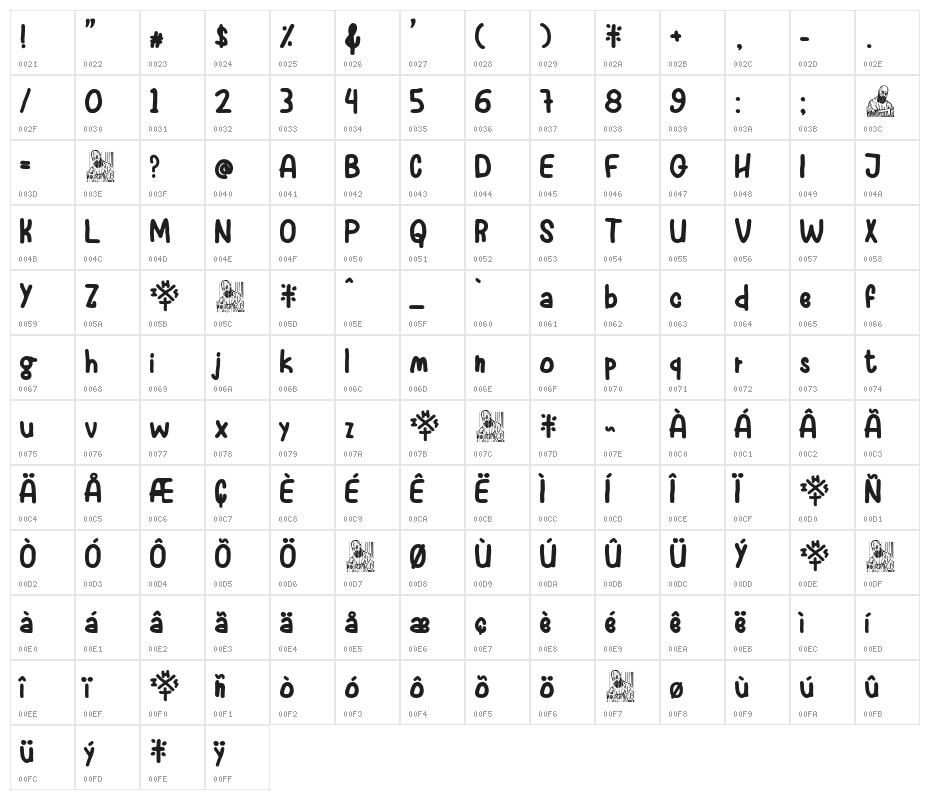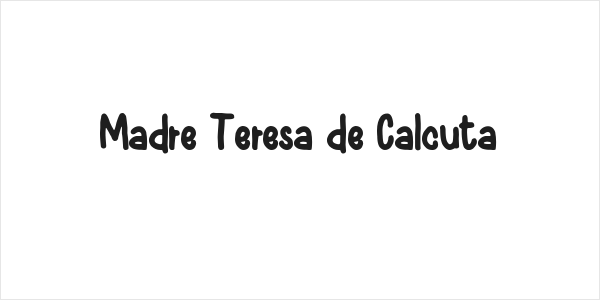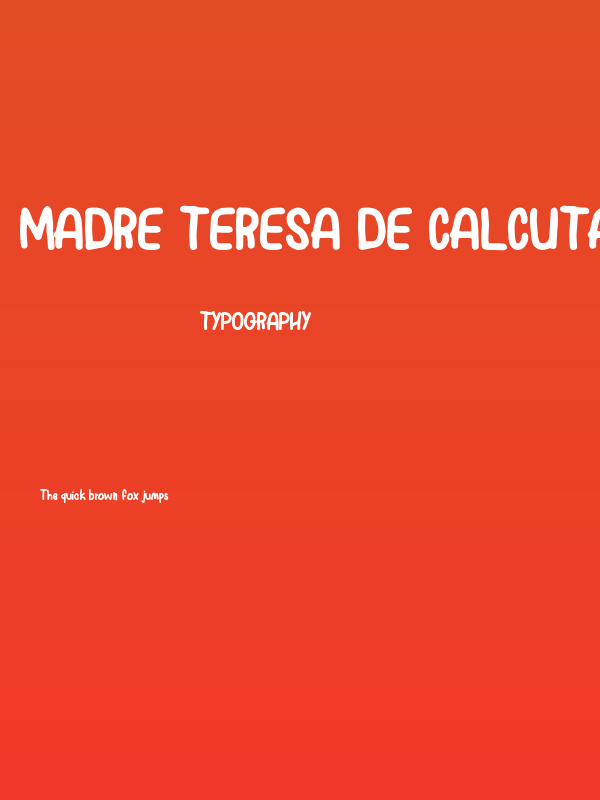
Madre Teresa de Calcuta Font
Madre Teresa de Calcuta Description
A playful, rounded handwritten typeface with irregular stroke thickness and organic, friendly shapes. The characters have a casual, informal appearance, with some variation in height and width, giving it a lively and approachable feel.
| Overall Style | Playful, Informal, Friendly |
| Use Case | Headlines, Posters, ChildrenΓ’β¬β’s materials, Informal branding |
| Proposed Projects | ChildrenΓ’β¬β’s books, posters, greeting cards, educational materials, informal branding. |